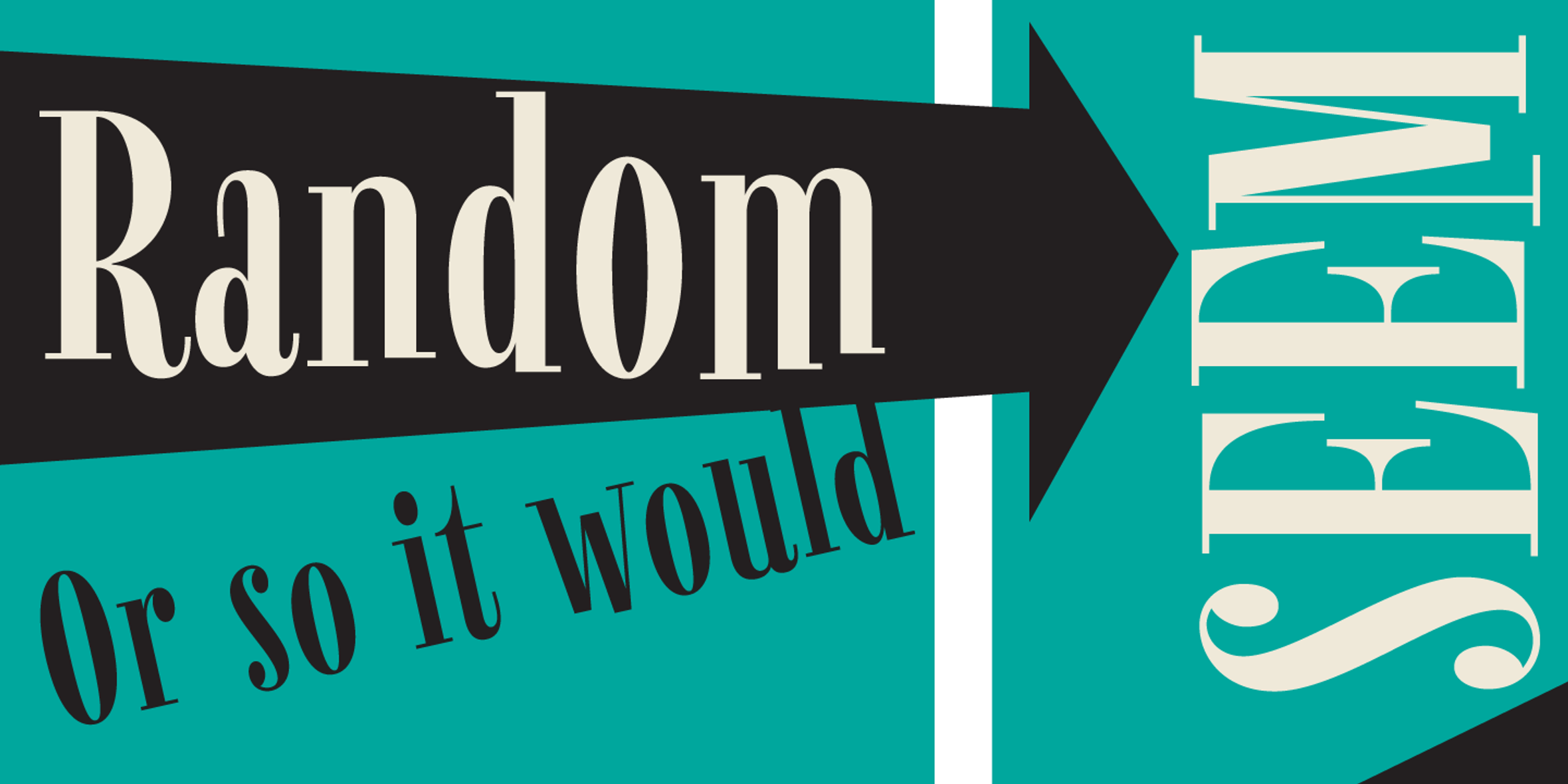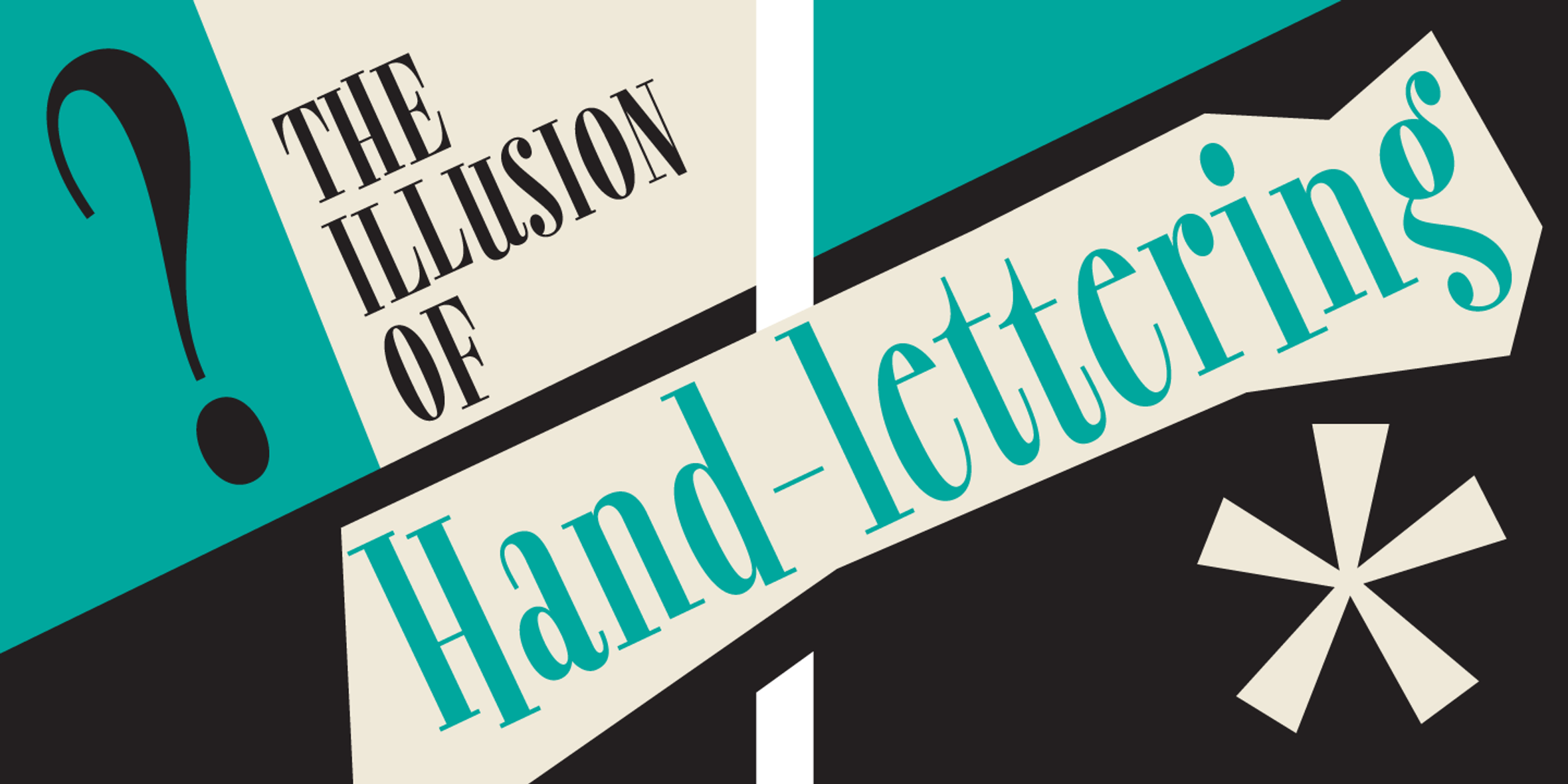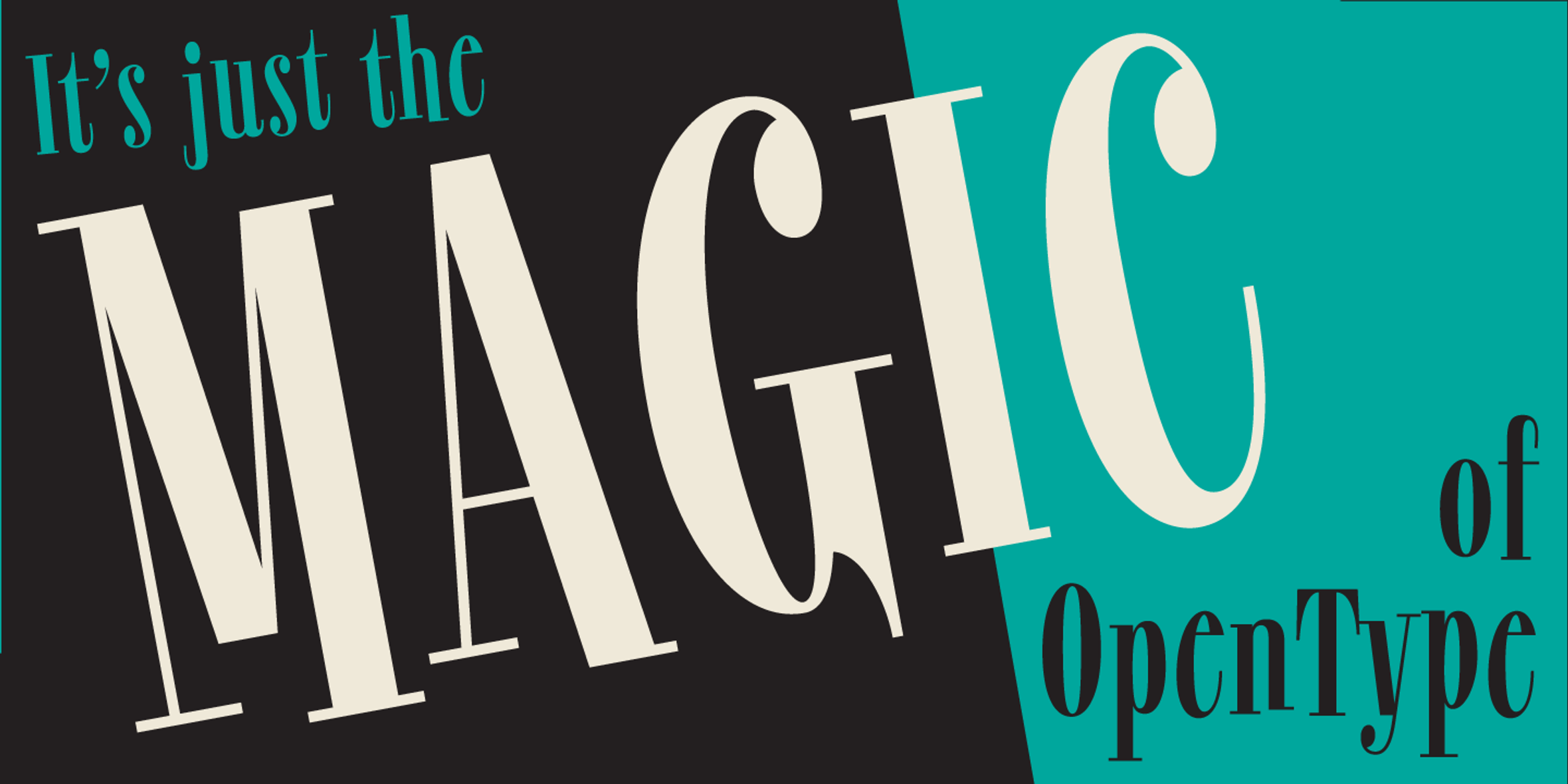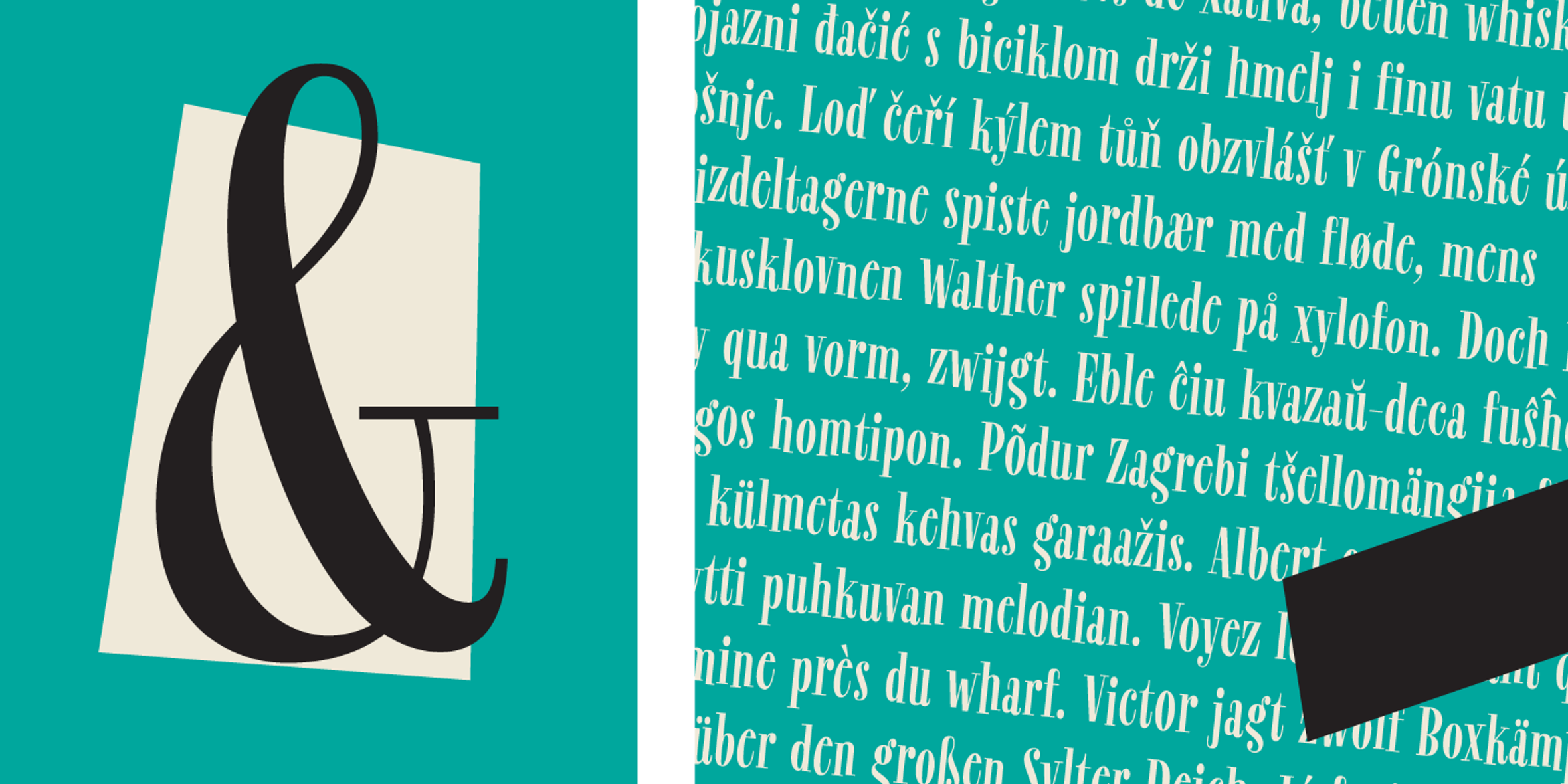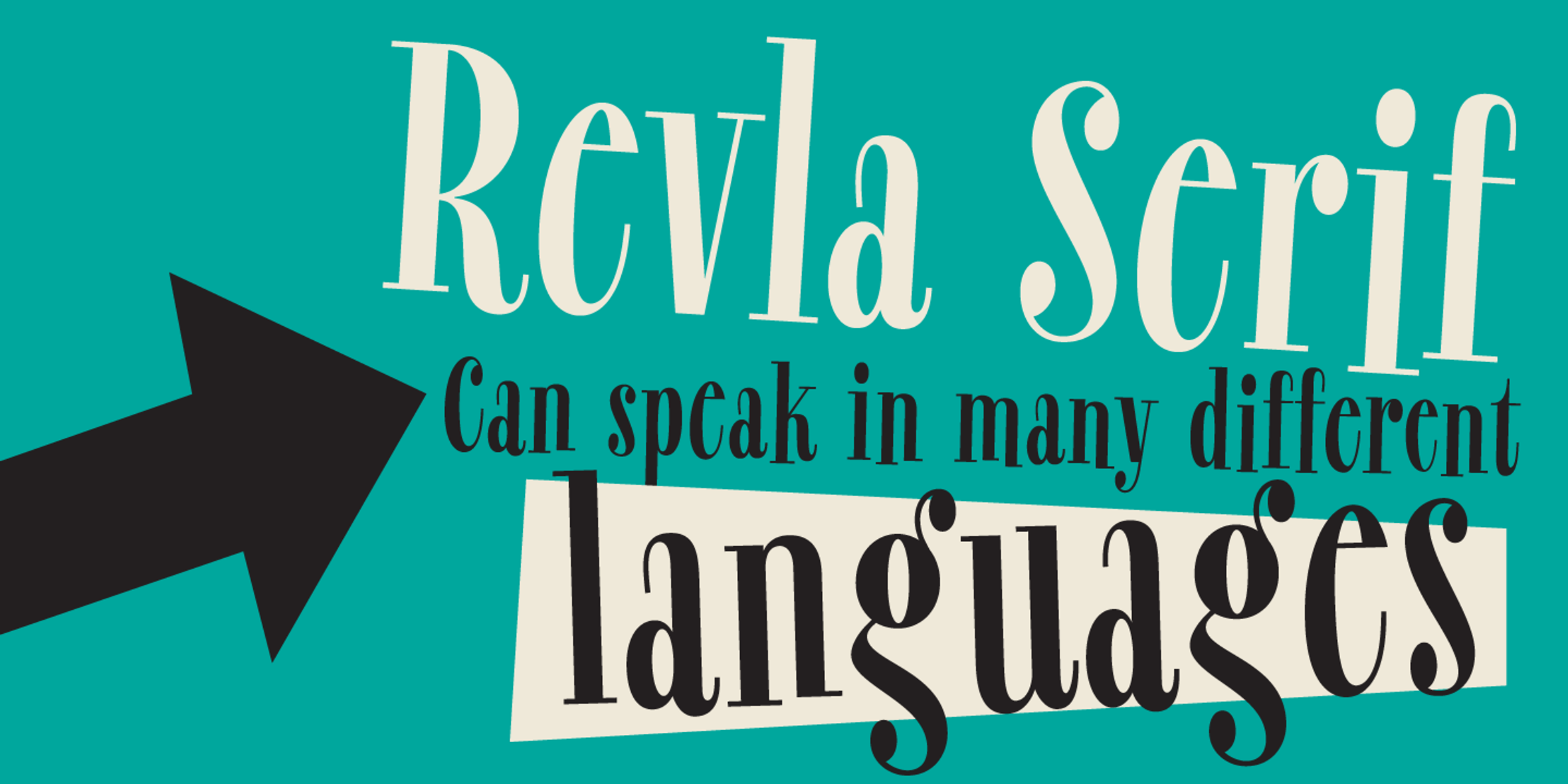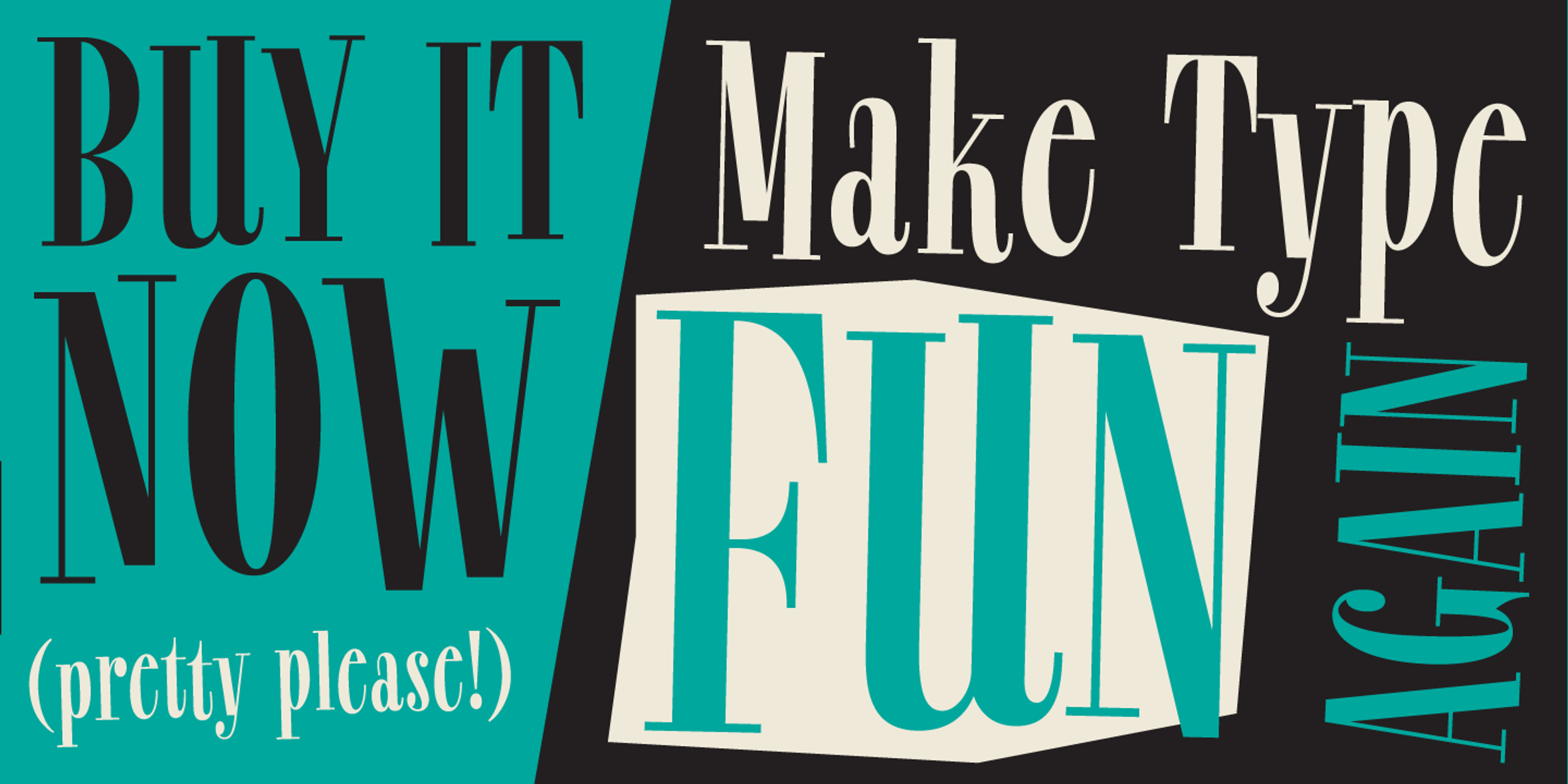
Revla Serif Font
Revla Serif
Revla Serif is a part of a condensed superfamily designed to put the fun back in your text! All five families share the same structure but boast unique personalities tailored for different uses. Round, Sans, Serif, Slab with bouncy baselines, and a more subdued Sans Text created for slightly longer reads. Each works fantastically well independently or with other members of the family. The possibilities are endless for graphic designers and typographers looking to infuse their work with character and charm.
- Fractions
- Ordinal Numerals
- Stylistic Alternates